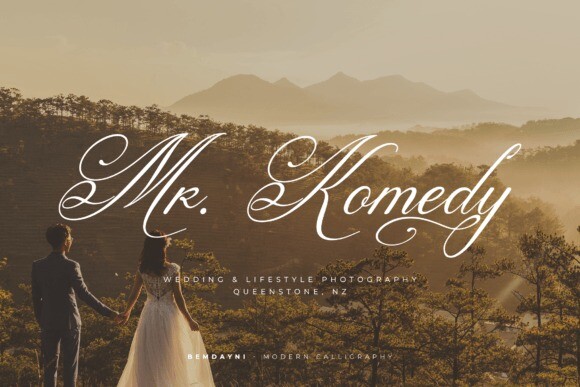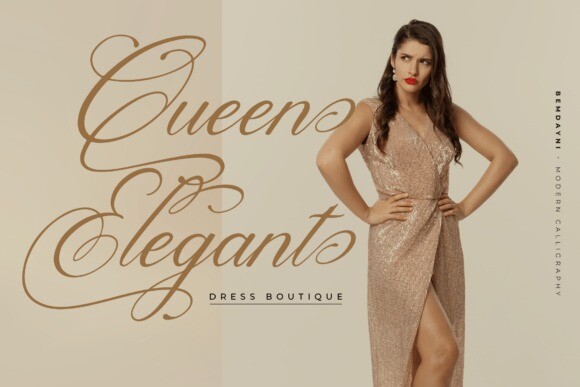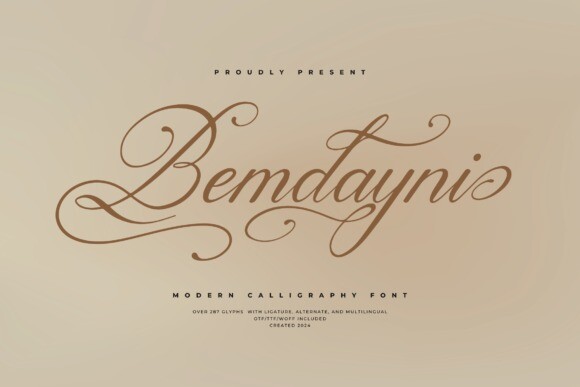
Bemdayni Font
Designer: Denustudios
Bemdayni Font is a stylish and modern calligraphy font with smooth, flowing letters. It’s perfect for adding a touch of elegance to invitations, greeting cards, and other creative projects.